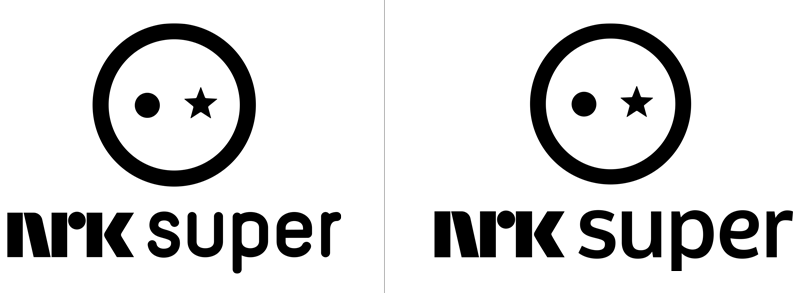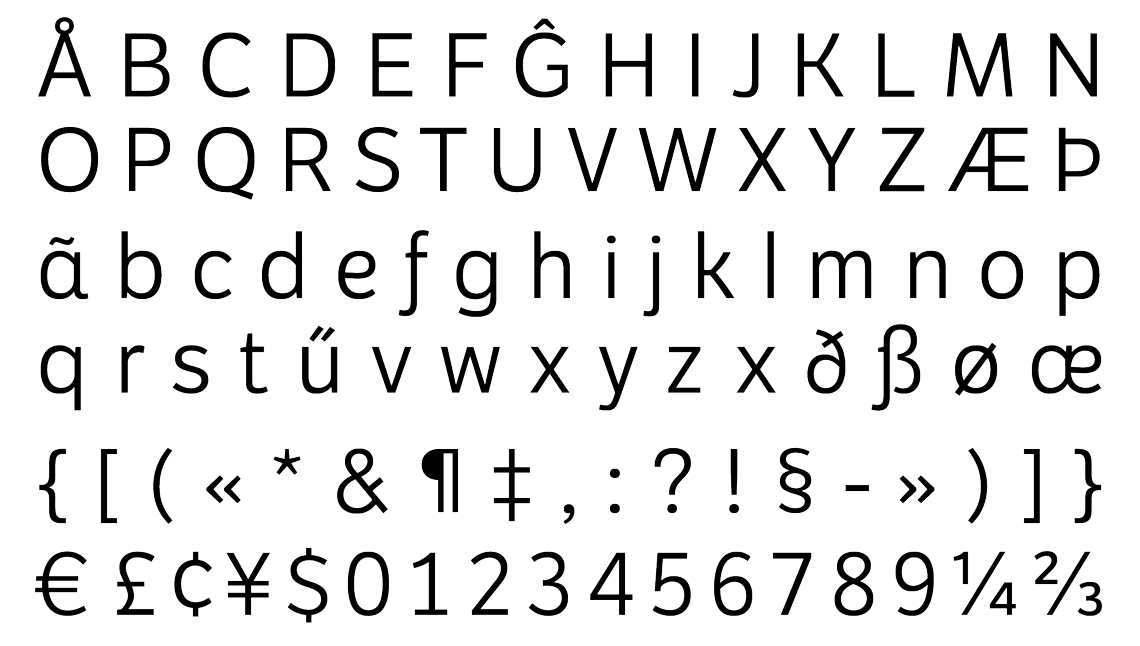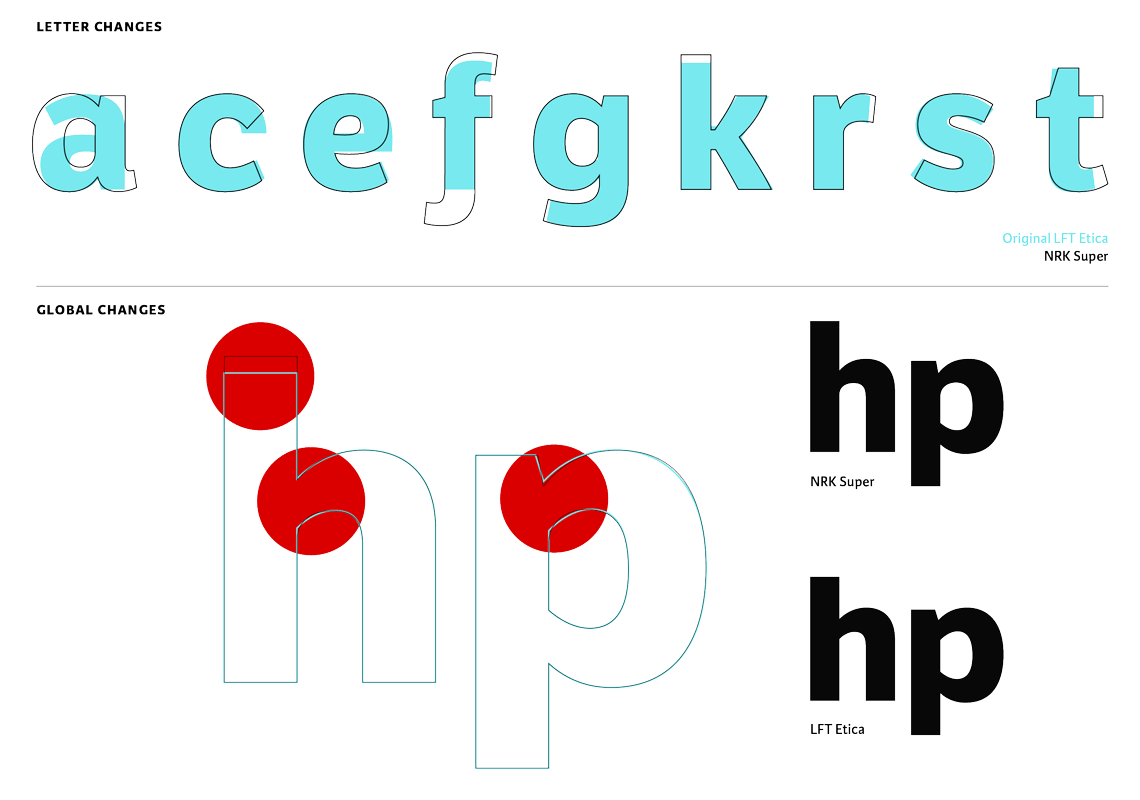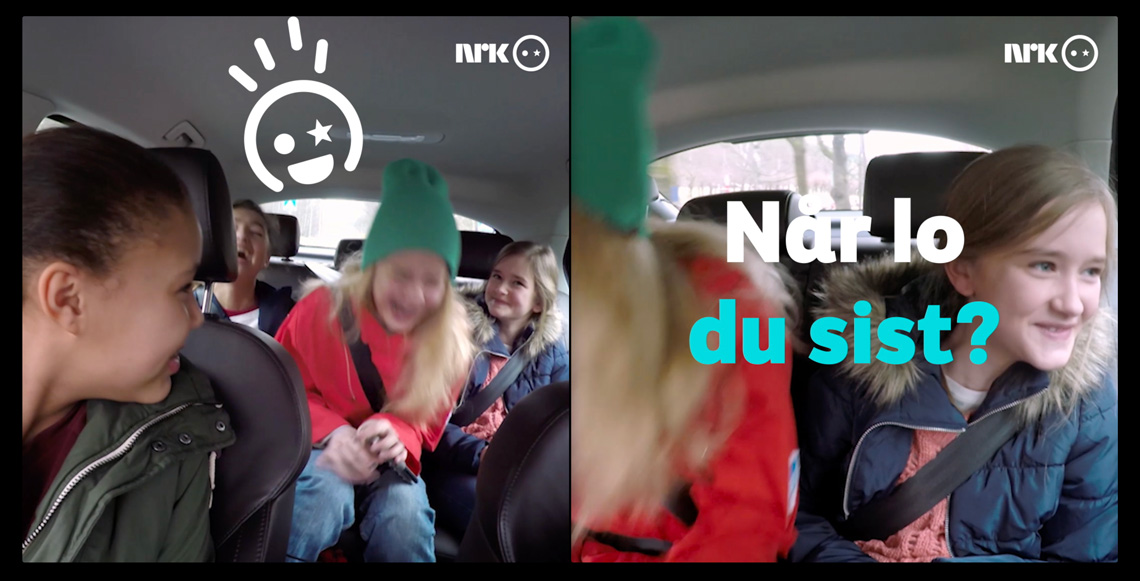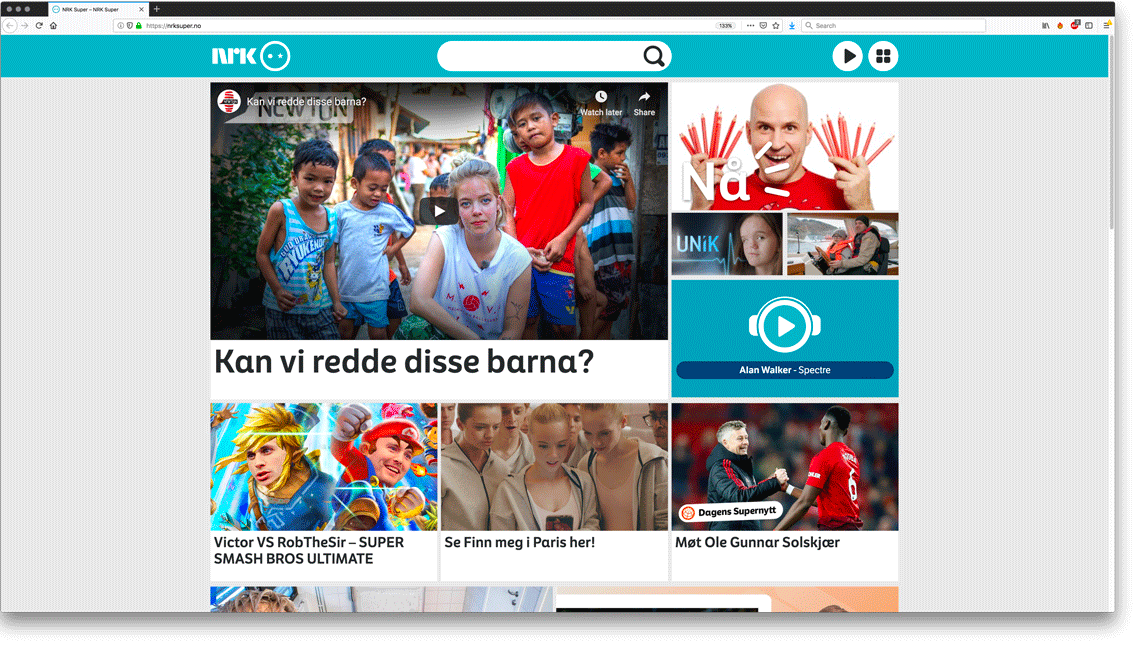
NRK Super
NRK again commissioned TypeTogether to create a custom font family for their children’s channel, NRK Super.
Three years after the first typeface commission from NRK, the Norwegian public television station engaged TypeTogether once more to create a customised version of LFT Etica for their children’s channel, NRK Super. The internal design team at NRK, led by Hilde Jørgenvåg, compiled an initial brief that kick-started the concept stage of the project. Their requirements were a great example of clear and insightful client communication:
1. Design a font that is part of the LFT Etica font family but is unique to NRK Super.
2. Usage: It is important that the font works in headlines on web and for social media content, as well as print.
3. The font should have some characteristics that make it stand out from the LFT Etica font family, but also work as a moderate display font. The font should be easy to read, and it is important that it does not come across as childish. The target audience for NRK Super is 2–12 years.
4. The NRK Super type family will be based on LFT Etica’s three styles: Book, Semibold, and Bold.
Originally, NRK was also looking to implement a layering effect as a playful way to enhance content. However, this idea was abandoned after some initial trials.
Taking these points into account, it was decided that modifications should happen on two levels. 1. Globally in the whole typeface, because small and subtle changes can have a high and distinct impact, and 2. Glyph-specifically in some key letters with a high repetition rate in Norwegian. To achieve a warmer and friendlier feel without seeming childish, the counters were softened on one side and connections were made smoother. Also, ascenders were made taller to give the font a more airy and pleasant quality.
According to character frequencies, the top six most common letters in Norwegian are “e n t r a i”, with “s g k” following closely. Modifying such key letters has a powerful overall impact on the general appearance of the font but does not disrupt family consistency with LFT Etica. The applied characteristics make the NRK Super font stand out enough to be recognisable as custom version for NRK Super.
• “a” offers two options and includes an outstroke tail
• “c, s” have more open and therefore friendly counters
• “e, f” have a cursive style that makes it softer
• “g” offers two options
• “k” has curved legs to make it playful
• “r, t” are wider
Glyph-specific modfications (top) and globally applied changes in counters and ascenders (bottom).
The NRK design team leading the new branding system for the channel also requested a revamp on the NRK Super wordmark, which was to be set in the tailored version and then fine-tuned in spacing, weight, and letter design to create a coherent image. See the old logotype on the left and new on the right.
The emoji based logo inspired the team to create a whole set of expressive emojis that would be combined with other graphical elements and layered on top of images. Additionally the emoji star eyes were included as an alternate stylistic set of punctuation, using stars instead of dots.
The emojis are available as separate font and as stylistic set within the NRK Super font.